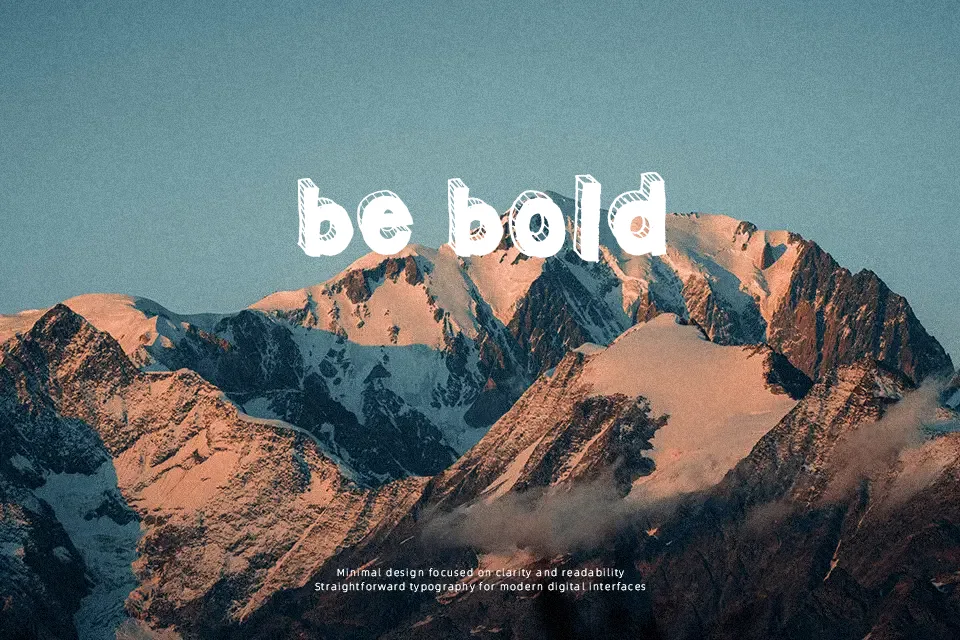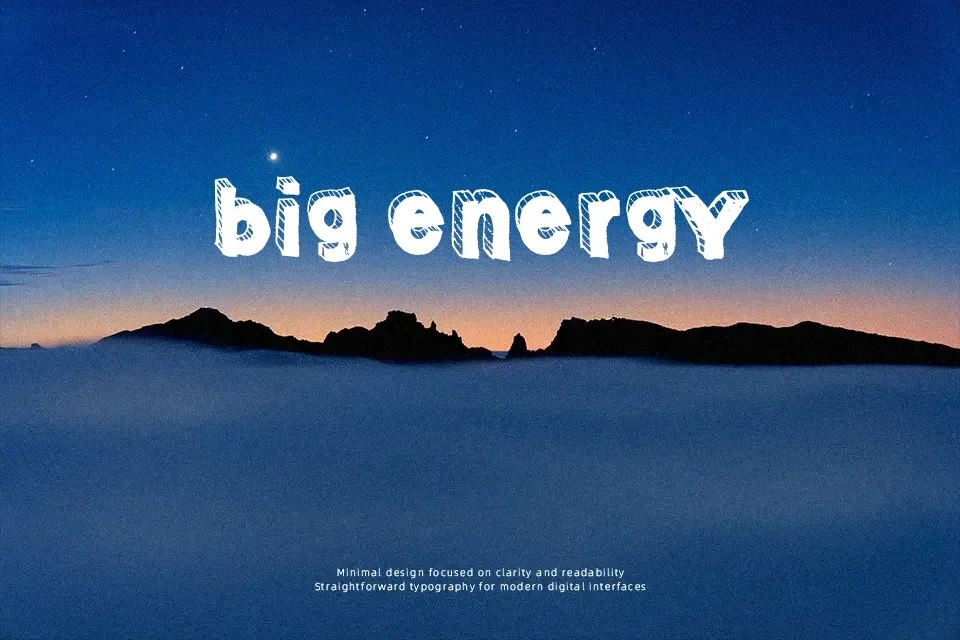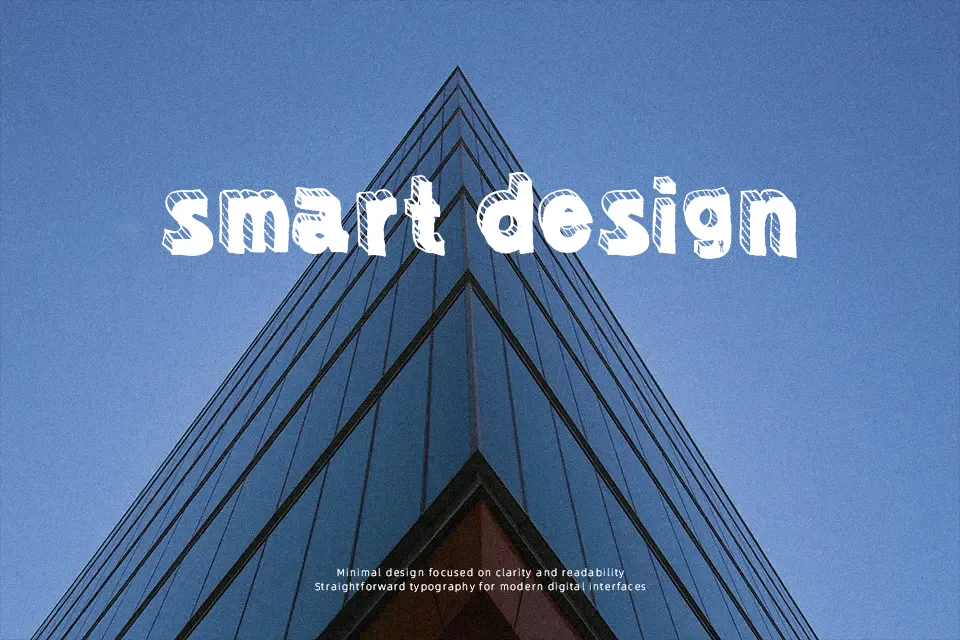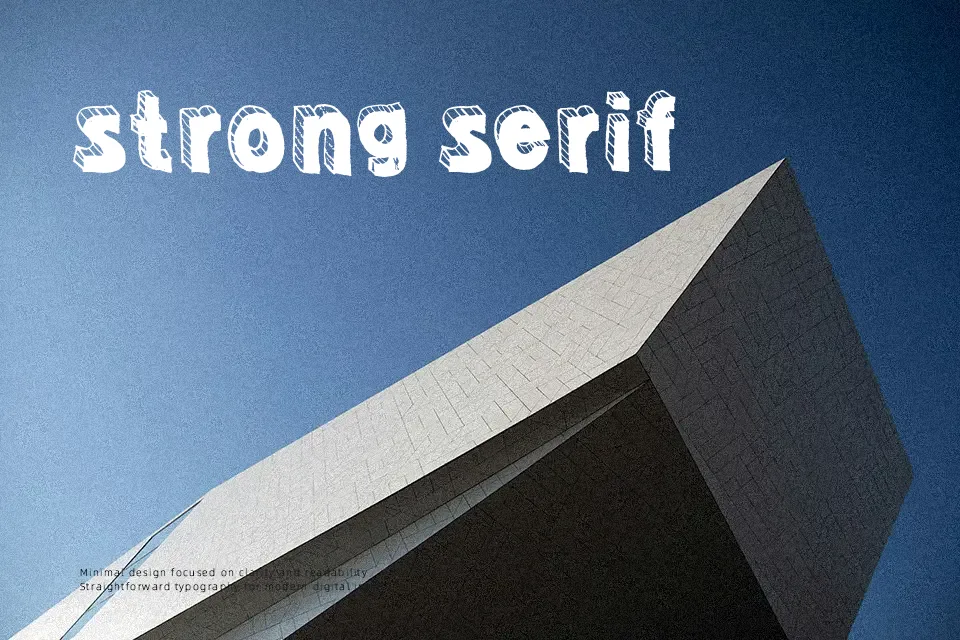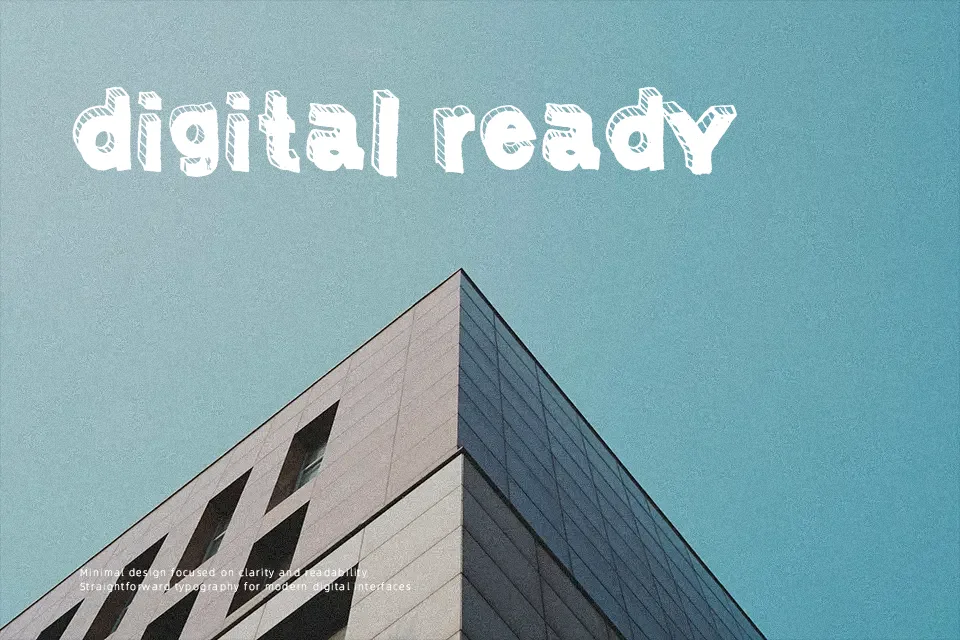
Sketched 3d Font
Sketched 3d Font is characterized by bold, hand-drawn letterforms featuring prominent drop shadows filled with dense sketch lines. The typeface displays heavy stroke weights with subtle irregular contours that convey a lively, illustrative energy. Generous spacing between characters accommodates the wide three-dimensional extrusion and prevents overlapping along headline arrangements. While the design delivers immediate visual presence across event flyers, casual apparel, and game titles, the intricate interior shading loses definition at reduced scales. The letterforms perform reliably in short promotional phrases, but the heavy decorative detail makes continuous reading impractical for extended body text.
Best For: cartoon poster headlines, children book titles, casual apparel graphics, video game logos
Not Ideal For: long body text, corporate documents, mobile user interfaces, small caption labels
Perfect for 3d, headline, and kids, with a artistic and cartoon style.